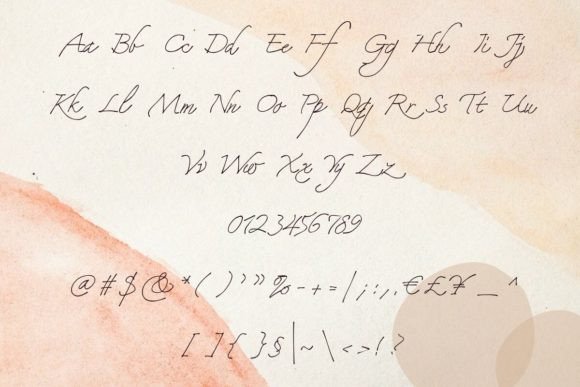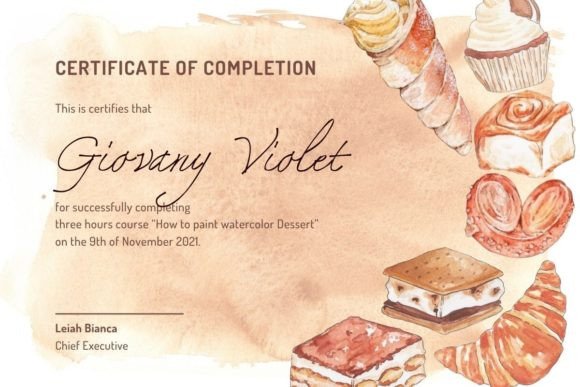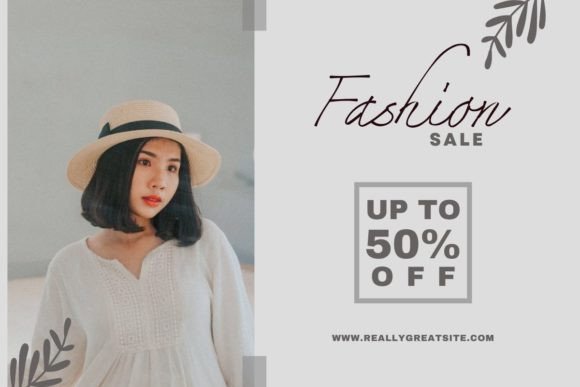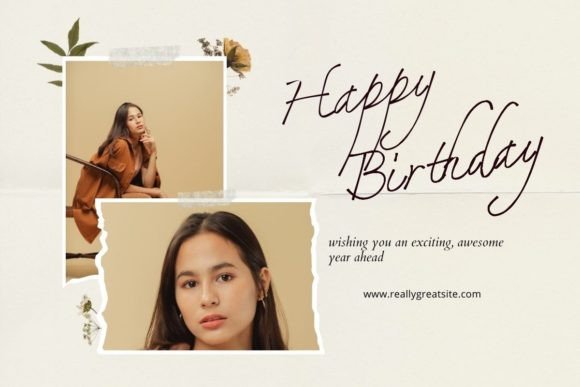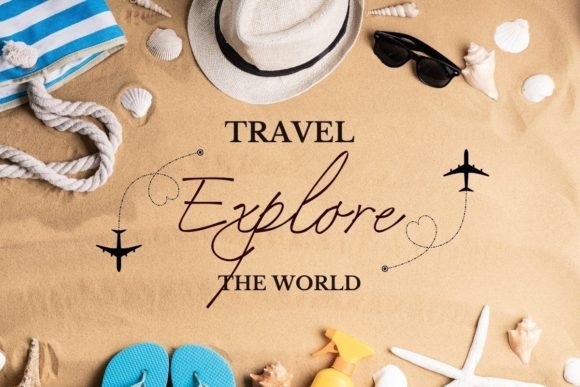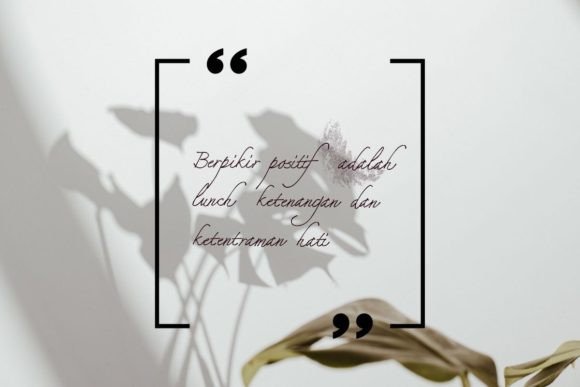
Gobble Gobble Font: Elevate Your Design with a Unique Handwritten Style
Are you tired of using the same old fonts in your design projects? Look no further than the Gobble Gobble font, a beautiful and light handwritten font that adds a touch of luxury to any design. With its unique feel and stunning impact, Gobble Gobble is the perfect choice for designers and crafters looking to elevate their work.
The Characteristics of Gobble Gobble Font
Gobble Gobble is a carefully crafted handwritten font that boasts a distinctive and elegant style. Its light and airy feel makes it perfect for use in a variety of design projects, from branding and packaging to wedding invitations and digital media. The font’s unique characteristics include:
- Handwritten style: Gobble Gobble has a beautiful, handwritten feel that adds a personal touch to any design.
- Light and airy: The font’s light weight and airy texture make it perfect for use in designs where a subtle, elegant look is desired.
- Unique feel: Gobble Gobble’s distinctive style sets it apart from other fonts, making it a great choice for designers looking to create something truly unique.
- Stunning impact: The font’s elegant style and precise lines make it a great choice for designs where a strong visual impact is desired.
Why Choose Gobble Gobble Font?
So why choose Gobble Gobble font for your next design project? Here are just a few reasons:
- Versatility: Gobble Gobble is a versatile font that can be used in a wide range of design projects, from digital media to print materials.
- Elegance: The font’s elegant style and precise lines make it perfect for use in designs where a sophisticated look is desired.
- Uniqueness: Gobble Gobble’s distinctive style sets it apart from other fonts, making it a great choice for designers looking to create something truly unique.
- Easy to read: Despite its elegant style, Gobble Gobble is easy to read, making it perfect for use in designs where clarity is important.
How to Use Gobble Gobble Font in Your Design Projects
Using Gobble Gobble font in your design projects is easy. Here are a few tips to get you started:
- Pair it with other fonts: Gobble Gobble looks great when paired with other fonts, such as sans-serif fonts or script fonts.
- Use it for headings: The font’s elegant style and precise lines make it perfect for use in headings and titles.
- Experiment with colors: Gobble Gobble looks great in a variety of colors, from bold and bright to soft and pastel.
- Use it for digital media: The font’s light weight and airy texture make it perfect for use in digital media, such as social media graphics and website headers.
Design Ideas Using Gobble Gobble Font
Gobble Gobble font is perfect for a wide range of design projects, including:
- Wedding invitations: The font’s elegant style and precise lines make it perfect for use in wedding invitations and other wedding-related design projects.
- Branding and packaging: Gobble Gobble is a great choice for branding and packaging design, adding a touch of luxury and sophistication to any product.
- Digital media: The font’s light weight and airy texture make it perfect for use in digital media, such as social media graphics and website headers.
- Stationery: Gobble Gobble is a great choice for stationery design, adding a touch of elegance and sophistication to any stationery set.
| Font Name | Gobble Gobble Font |
| Author | PeamCreations |
In conclusion, Gobble Gobble font is a beautiful and light handwritten font that adds a touch of luxury to any design project. With its unique feel and stunning impact, Gobble Gobble is the perfect choice for designers and crafters looking to elevate their work. Whether you’re creating a wedding invitation, branding and packaging design, or digital media, Gobble Gobble is a versatile font that is sure to impress.